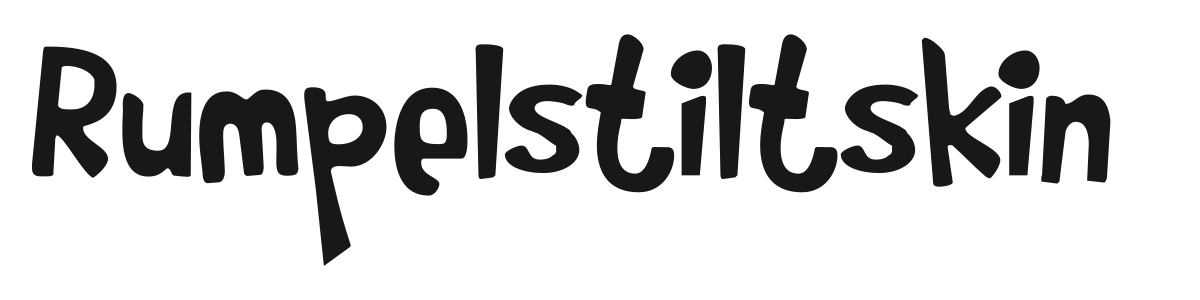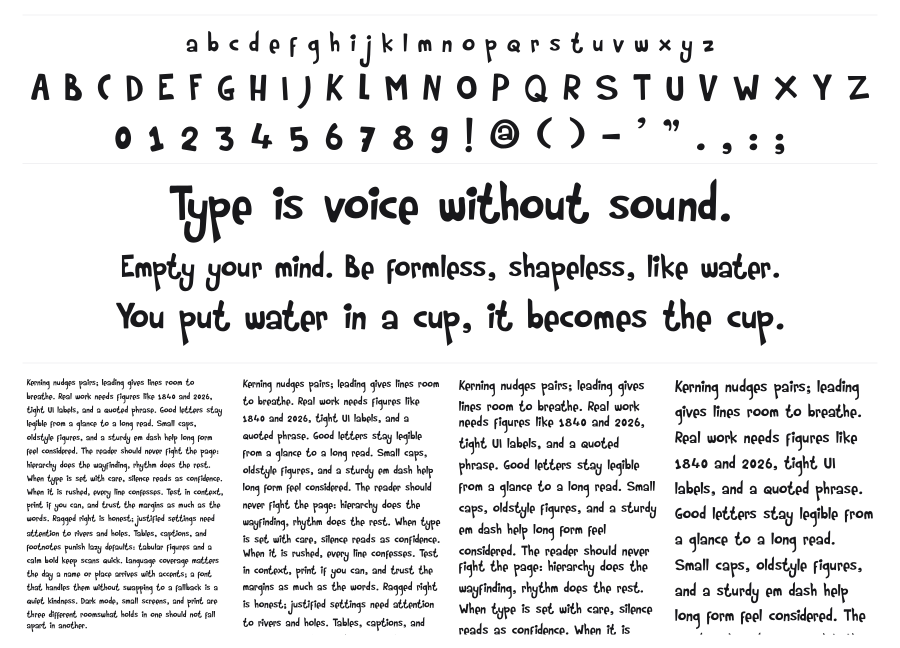
Rumpelstiltskin
Rumpelstiltskin is a bold, bouncy handwritten face from Hanoded that looks like it was scrawled with a thick marker by someone having a good time. The letterforms are deliberately uneven and childlike, with a quirky charm that keeps things playful without feeling sloppy. Best at headline sizes for posters, children's books, packaging, or anything that needs a loose, personality-driven touch.